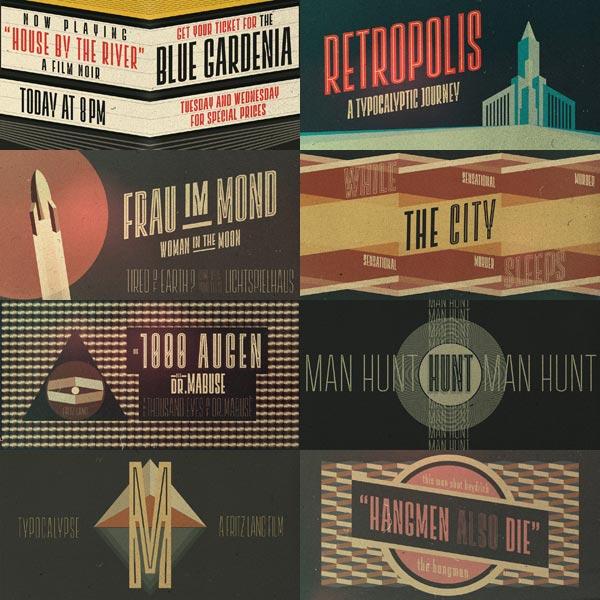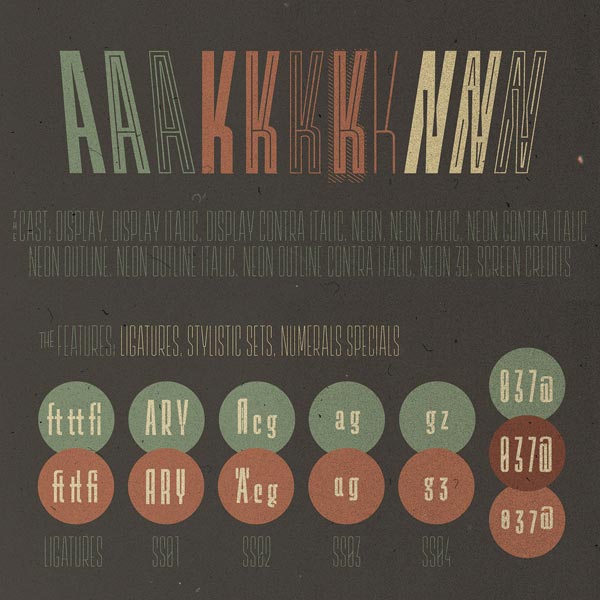
Lichtspiele – Retro Cinema Font Family.
Lichtspiele is a retro font family reminiscent of cinemas from the early 20th century. Font designer Stefan Huebsch of Typocalypse has created a font that takes you back to a time of neon light and lettering decorated cinemas. The Lichtspiele family consists of 5 different styles plus left-leaning, lower-left, right-leaning, and lower-right italic versions. Display serves as basic style. The Neon style is inspired by typical old neon letters. Neon Outline is a great companion to Display or Neon, while Neon 3D is an extruded version of the Neon style. A special version with a unique style for movie posters is the Screen Credits version.